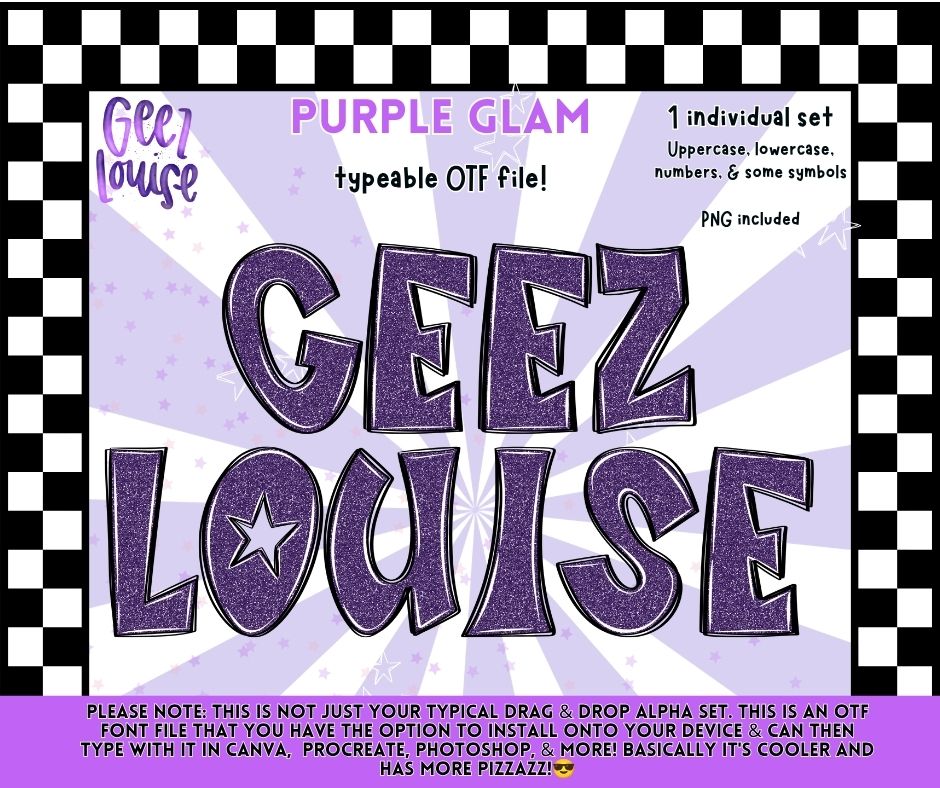
Purple Glam OTF Font & PNG Alpha | Typeable Font | Individual Alphabet | July 26 No FOMO Drive | Digital Download
✨ Add a little sparkle to your next project with the Purple Glam alphabet! This individual set includes a typeable OTF font and matching PNG alpha files for endless creative possibilities.